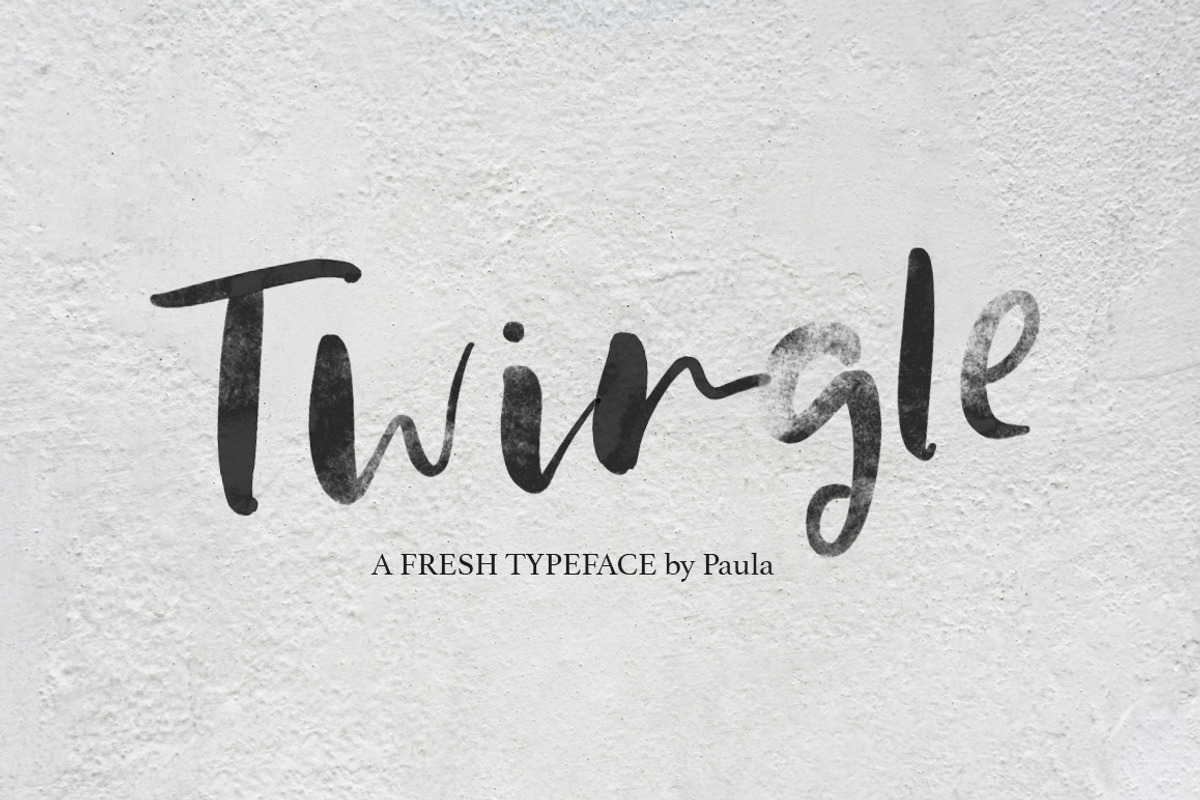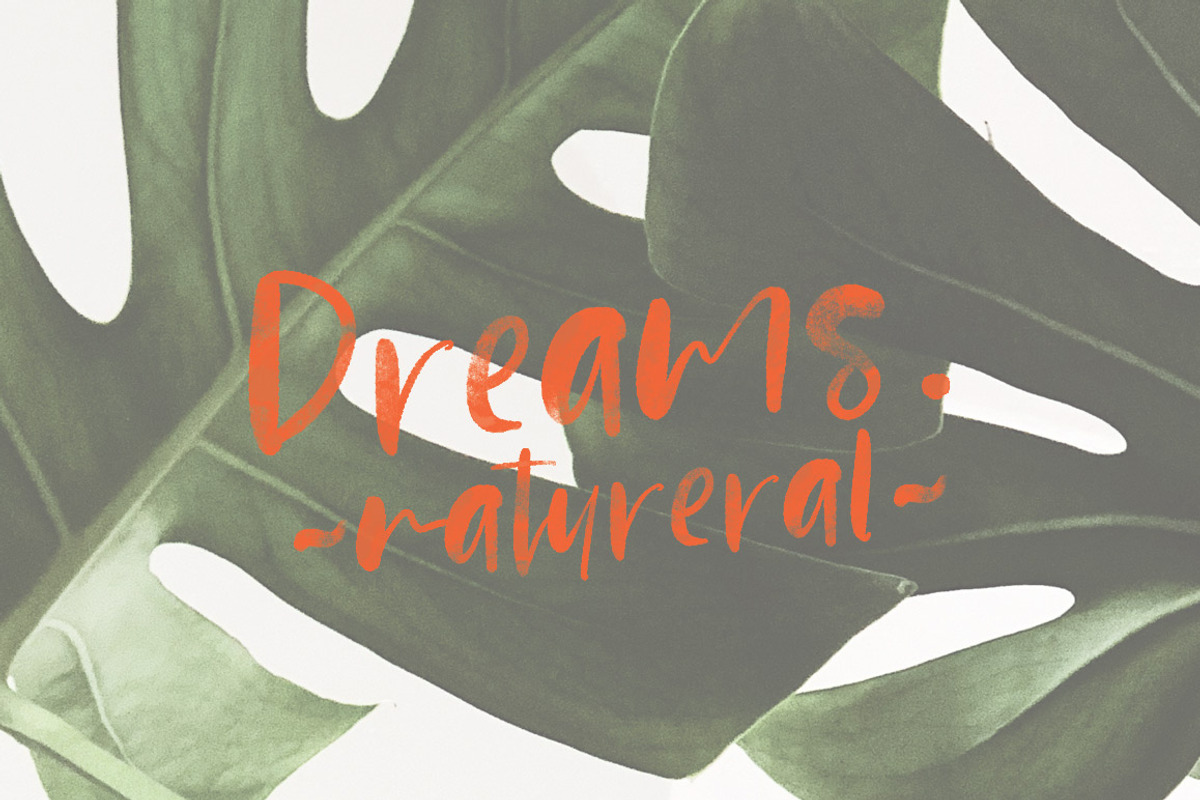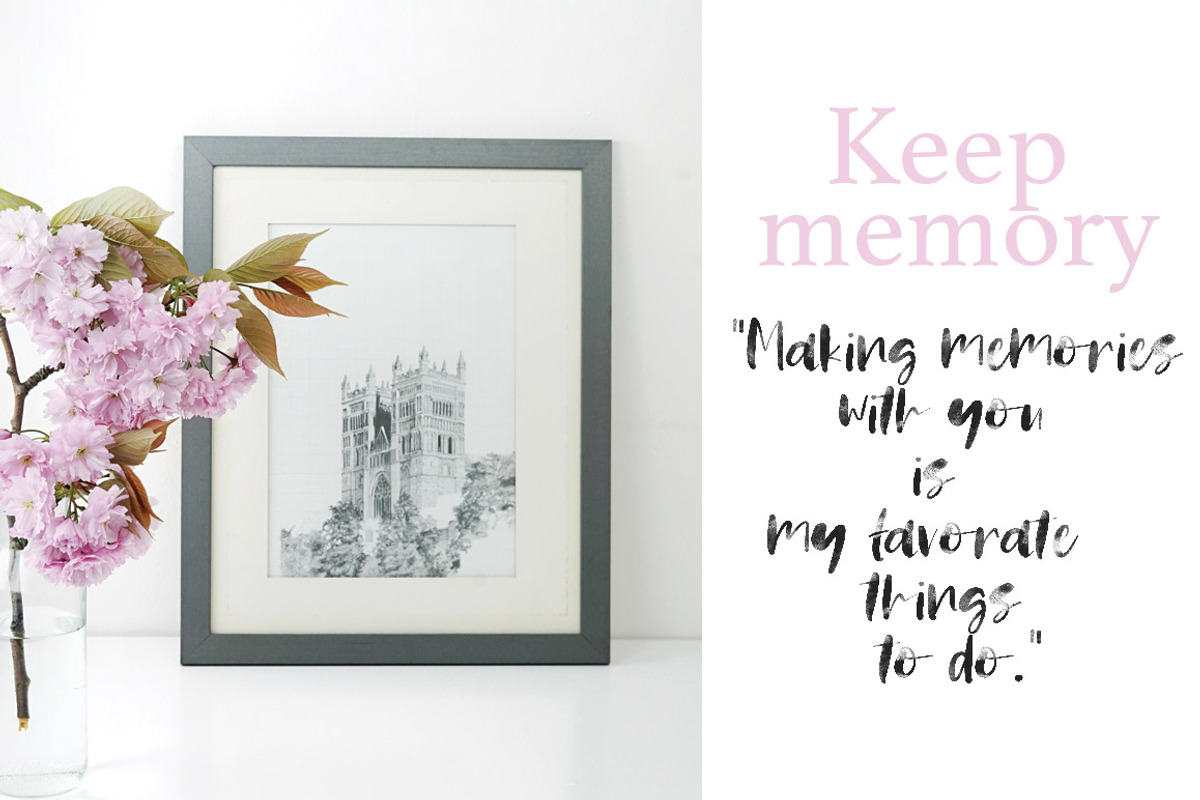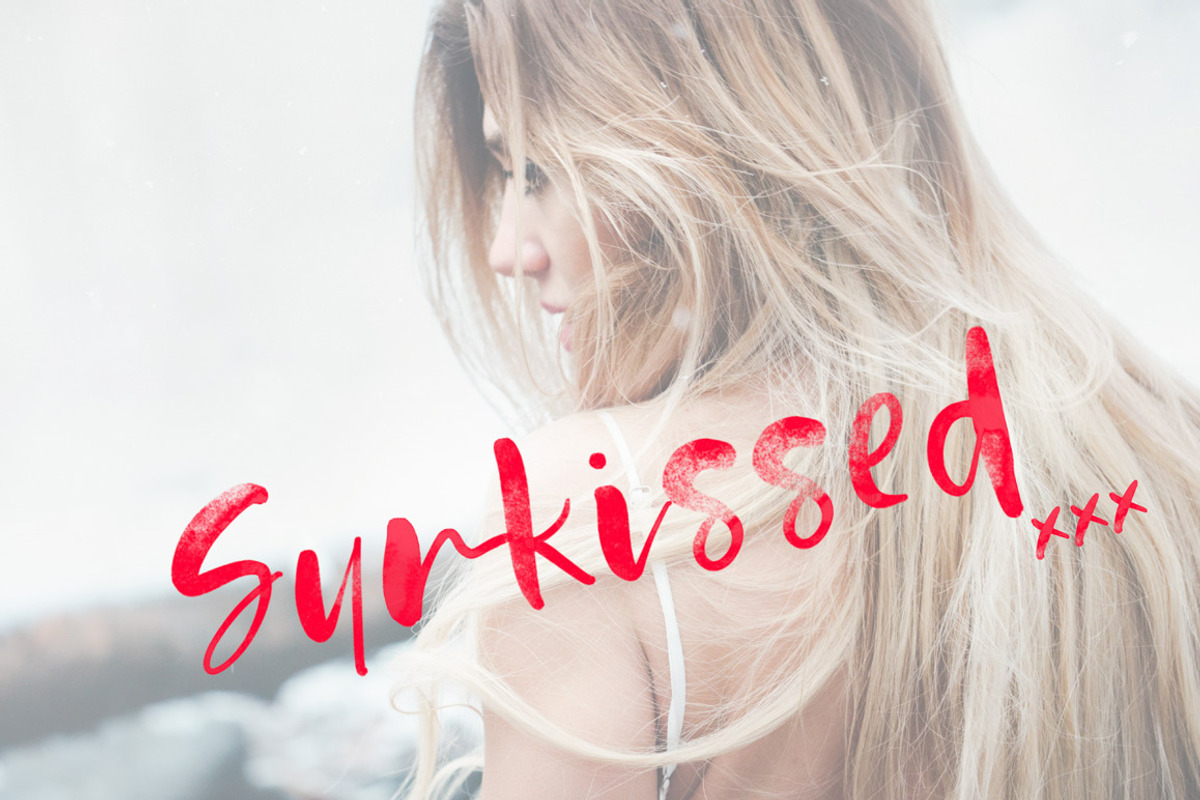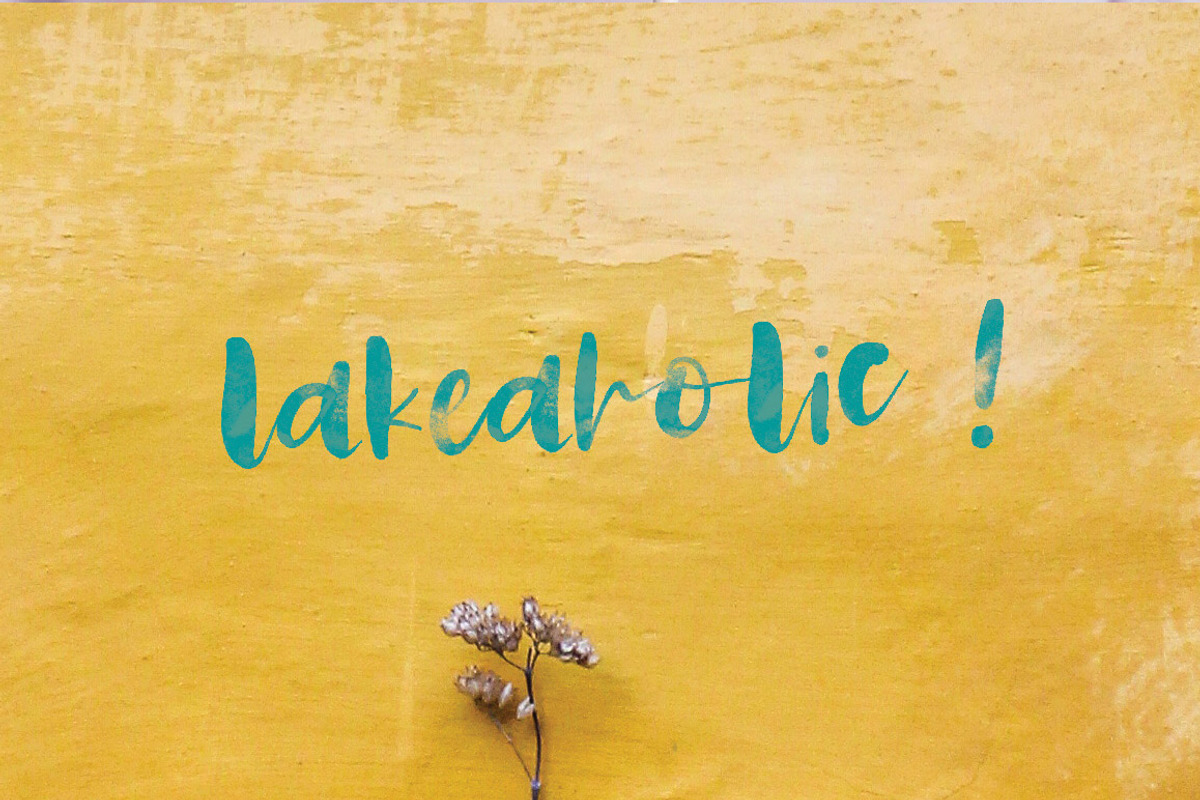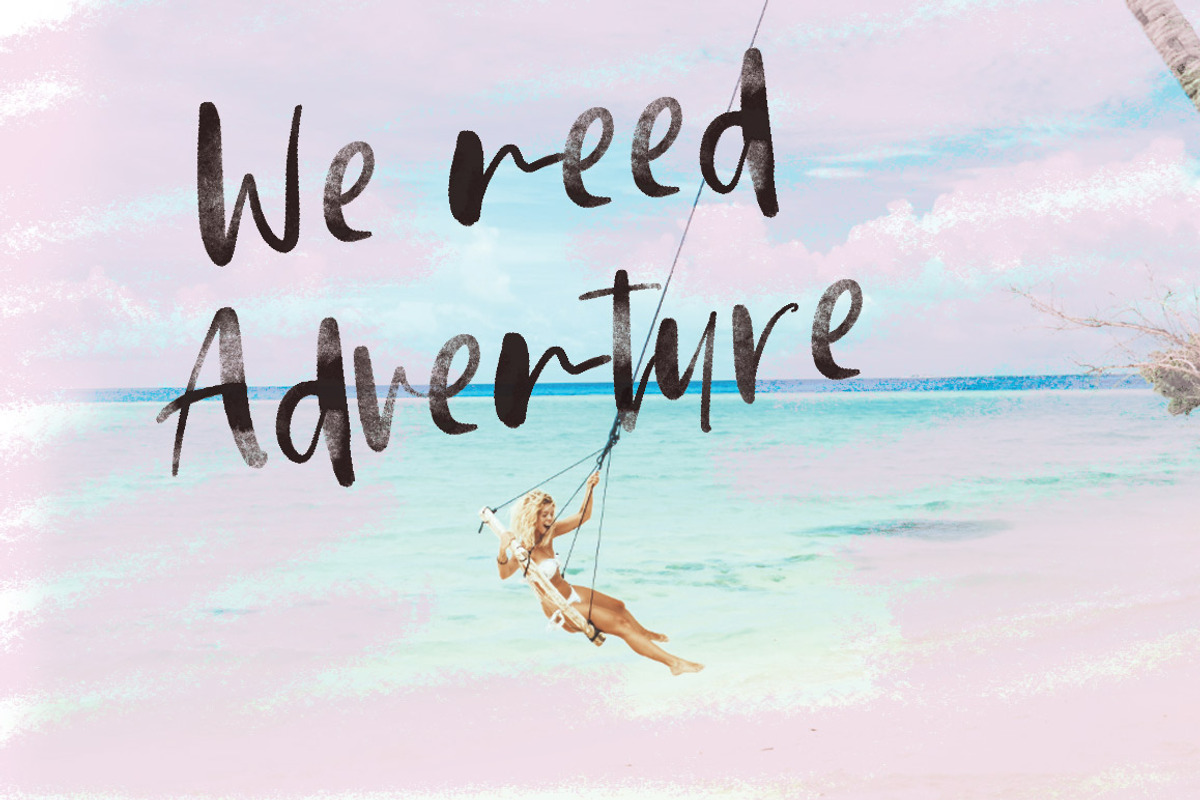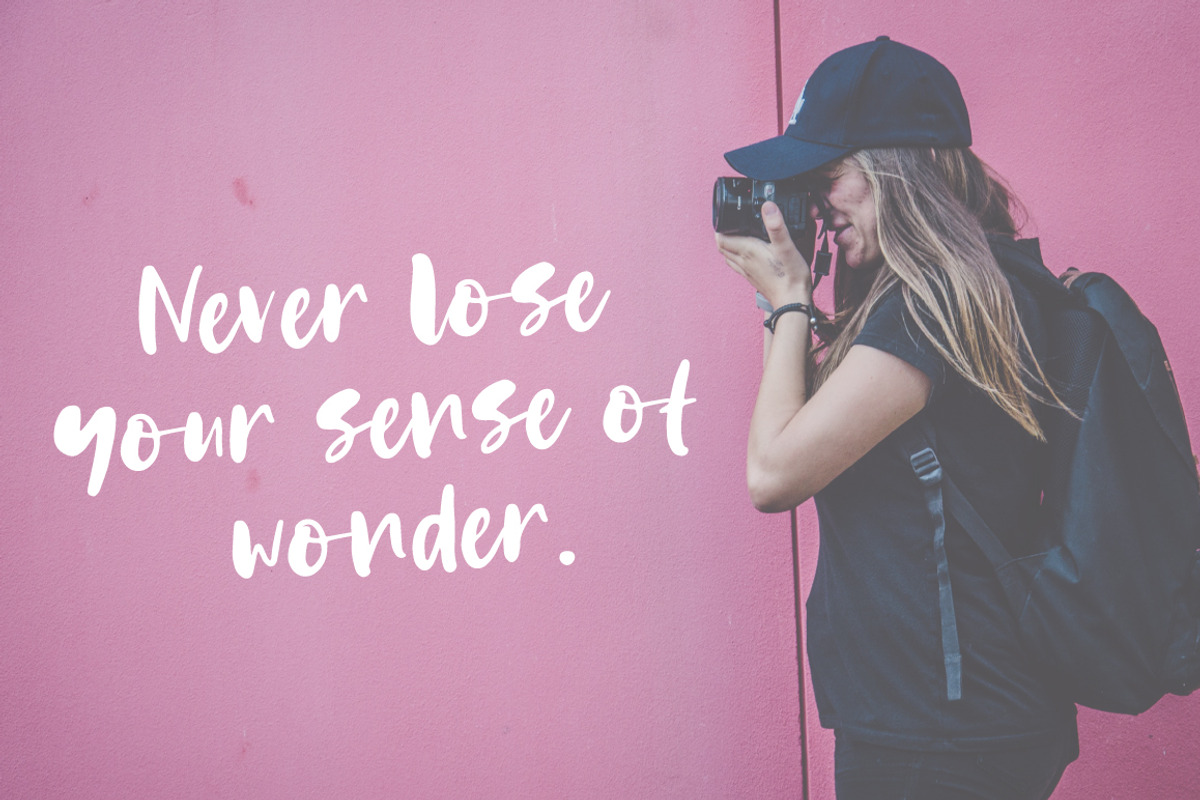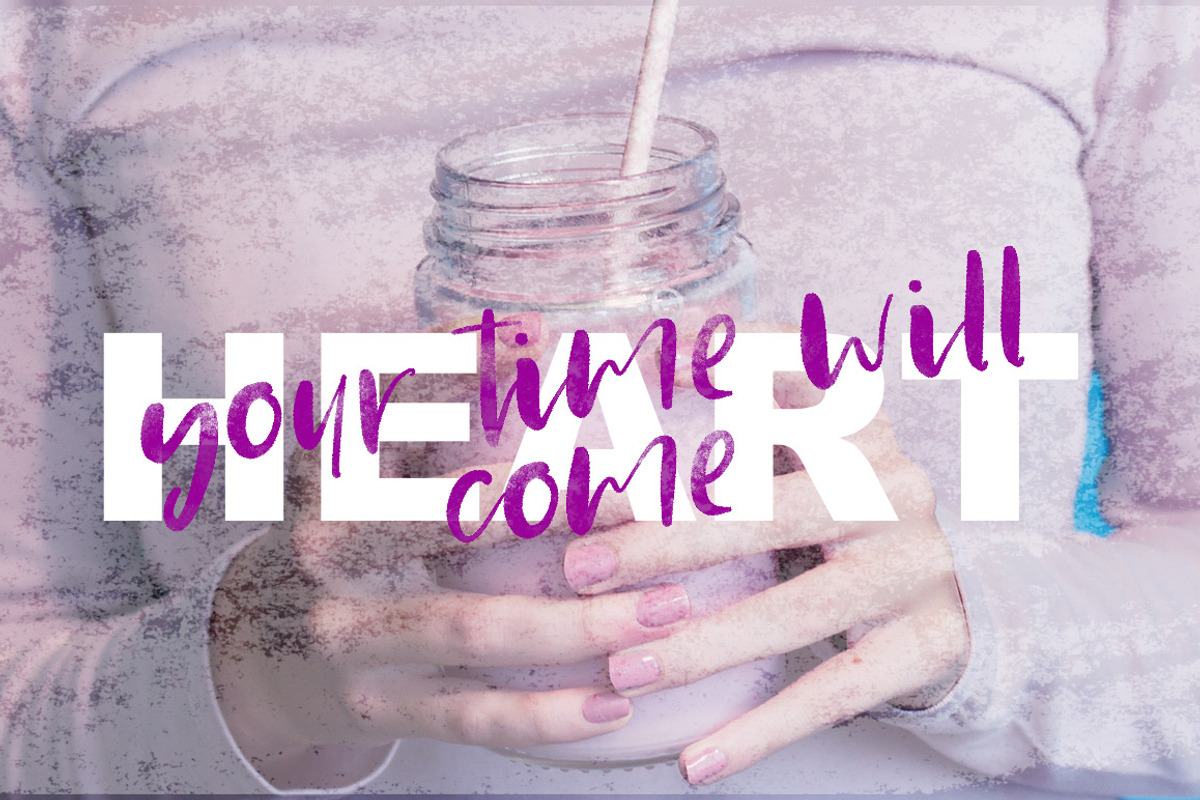
Twingle | Scrip + SVG Font
I'd like to Present you to Twingle ;)
Twingle is lovingly handwritten fonts. A brushed casual script with SVG version
A beautiful collection of hand-lettered modern calligraphy fonts. Perfect for Type-based creations, branding, packaging, quotes, invites, greetings, websites, book covers and so much more!
Twingle SVG and Twingle Alt SVG : Upper and Lowercase numbers and punctuation This is the OpenSVG version of the font